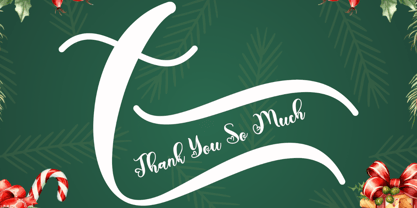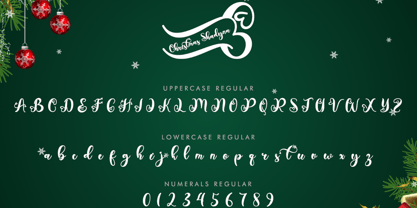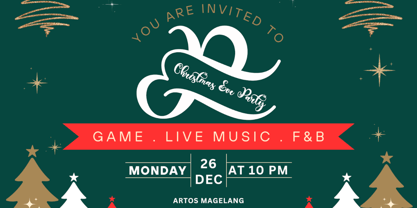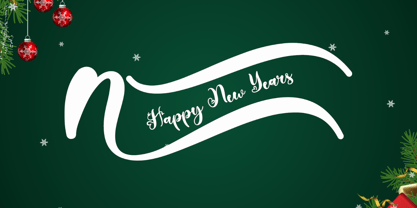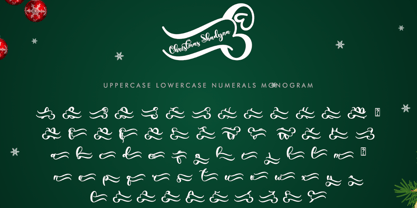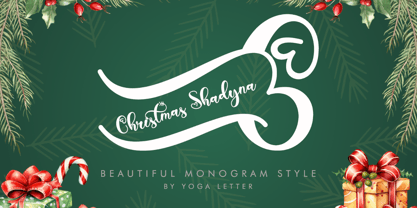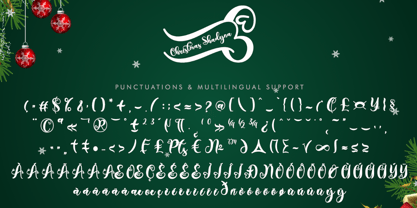
Christmas Shadyna
by Yoga Letter
The Christmas Shadyna Font Family was designed by Isroni Yoga Prasetya and published by Yoga Letter. Christmas Shadyna contains 2 styles and family package options. More about this family
"Christmas Shadyna" is a handwritten font with a beautiful monogram combination. It features monograms, uppercase and lowercase letters, numbers, punctuation, and multilingual support. Perfect for invitations, Christmas, winter, parties, weddings, engagements, fall, autumn, Halloween, and Thanksgiving, posters, prints, banners, branding, logos, stickers, and more.
Designers: Isroni Yoga Prasetya
Foundry: Yoga Letter